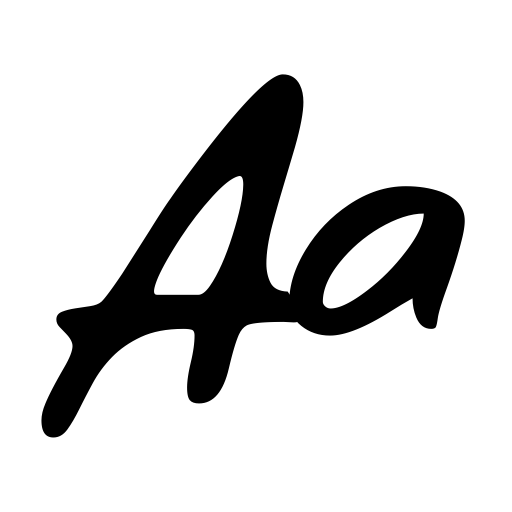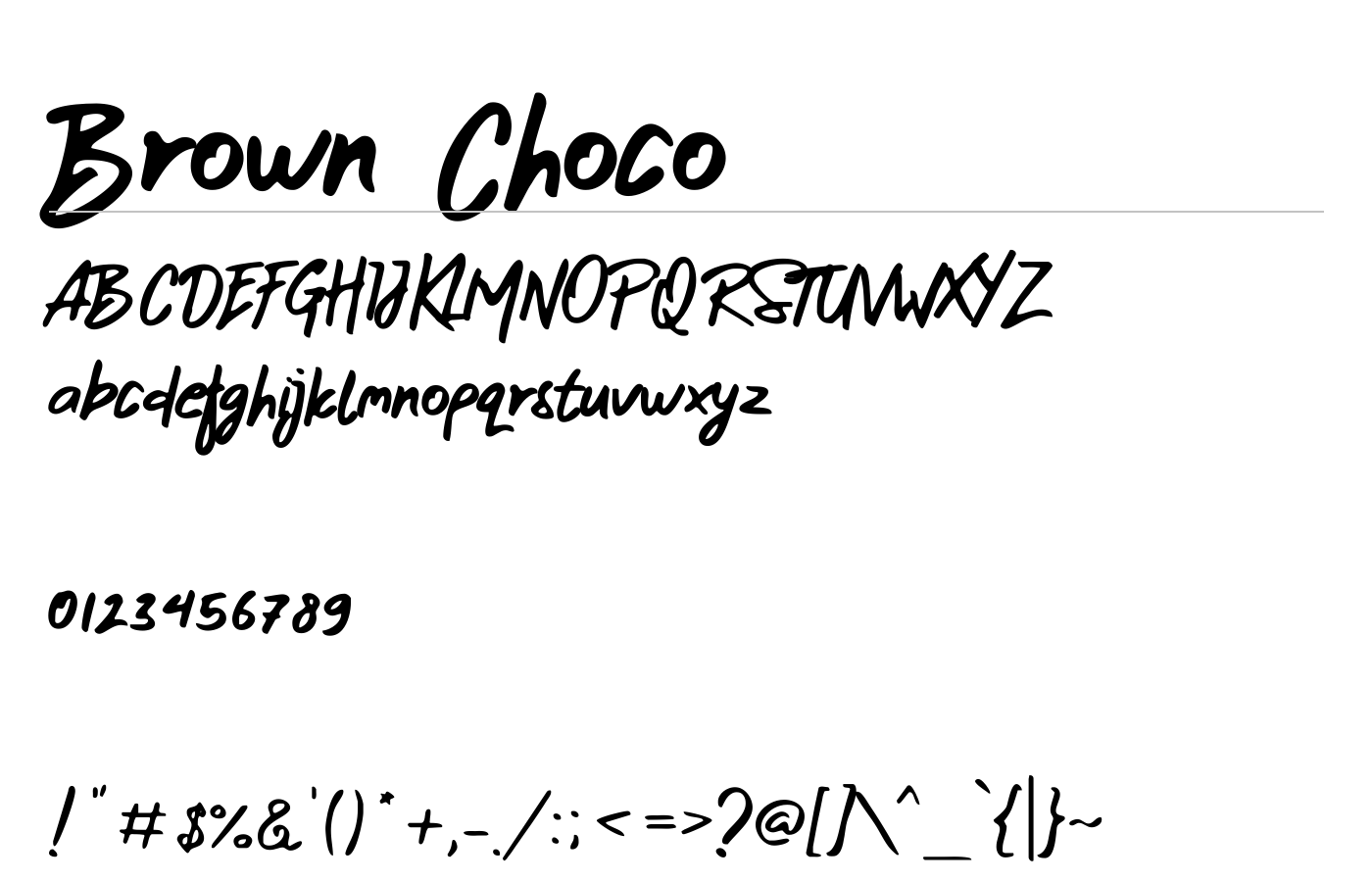
Brown Choco is a lively and casual handwritten font with a slightly bold weight and dynamic, energetic strokes that feel playful yet confident. Its smooth, rounded letterforms and moderate x-height give it a friendly and approachable character, making it ideal for creative projects, informal branding, and packaging that seek a warm, personal touch. This font works well for headlines, logos, and any design that benefits from a spontaneous and inviting handwritten style.
Brown Choco Font
About Brown Choco Font
| Font family | Brown Choco Font |
| Designer | Lettersiro 2018 |